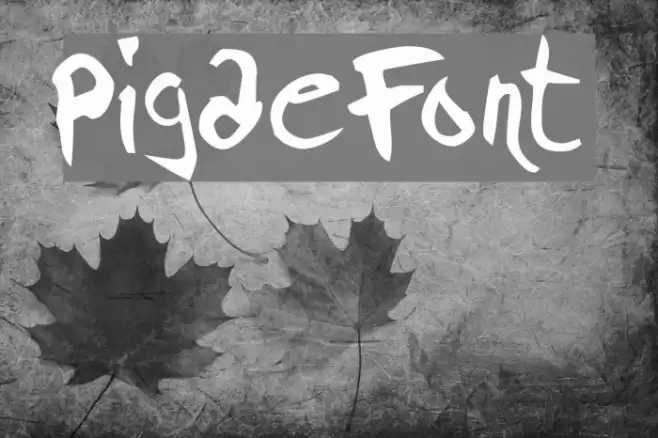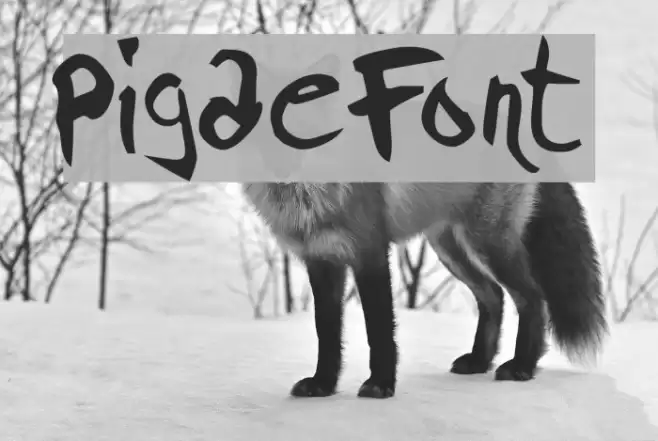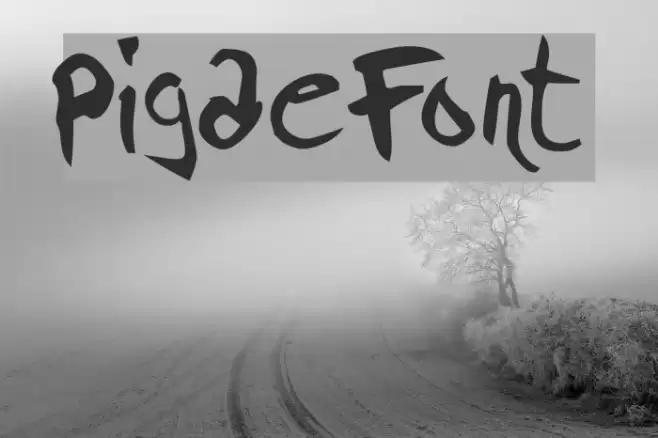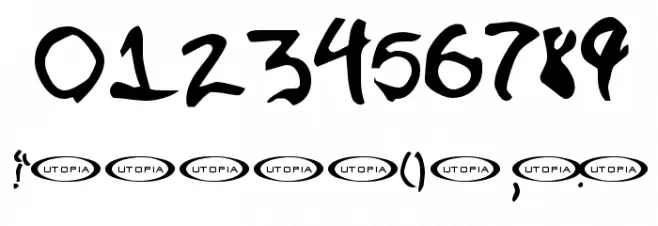
Pigae Font
Pigae Description
This font features a bold and dynamic style with a distinctly hand-drawn appearance. The uppercase letters are characterized by their irregular and expressive strokes, giving them a lively and energetic feel. The lowercase letters maintain this playful aesthetic, with some characters displaying unique flourishes and curves. The numerals are consistent with the overall style, offering a cohesive look across all characters. Special characters are included, adding versatility to the font. The overall impression is one of creativity and movement, making it suitable for projects that require a touch of artistic flair.
A bold, hand-drawn font with expressive strokes and a lively appearance from Handwritten fonts.
- Proposed Projects: Ideal for creative projects such as posters, album covers, and artistic branding materials.